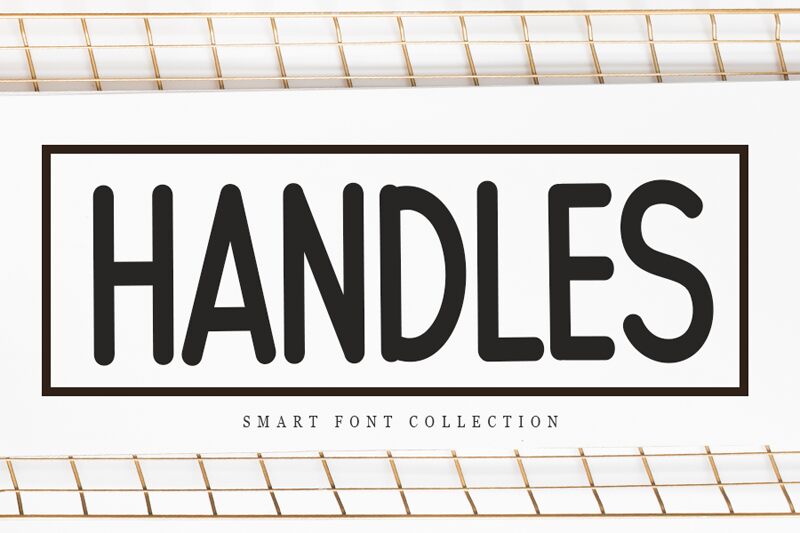
Handles
Handles font, crafted by Creatype Designer, embodies a harmonious blend of contemporary flair and classic calligraphic elegance. As a handwritten style, it stands out with smooth curves and refined lines that exude sophistication while maintaining a fresh and modern aesthetic.
This free font is perfect for those looking to add personality to their projects. Its versatility shines in various applications, from letterheads and titles to elegant stationery design. With Handles font, your creative ideas can seamlessly transition from digital to print.